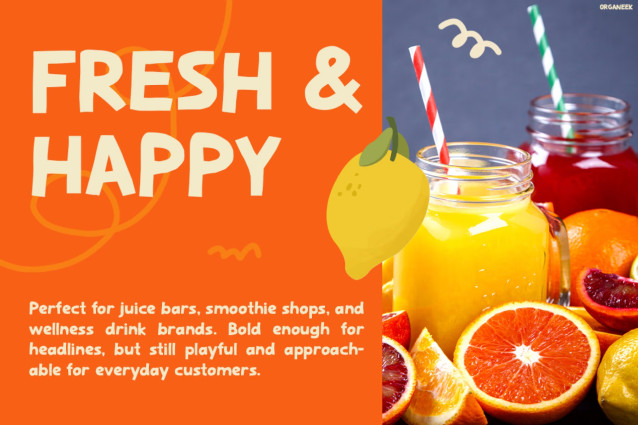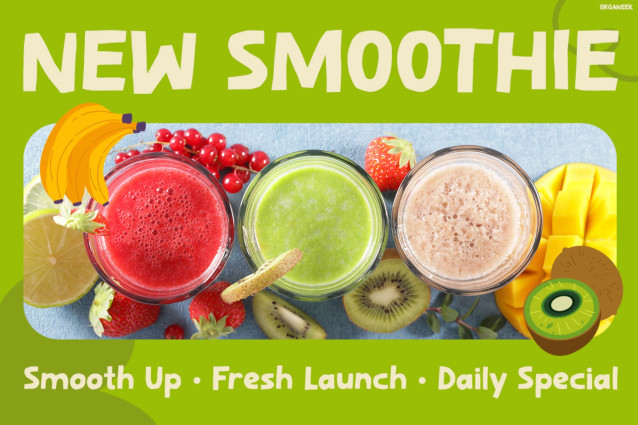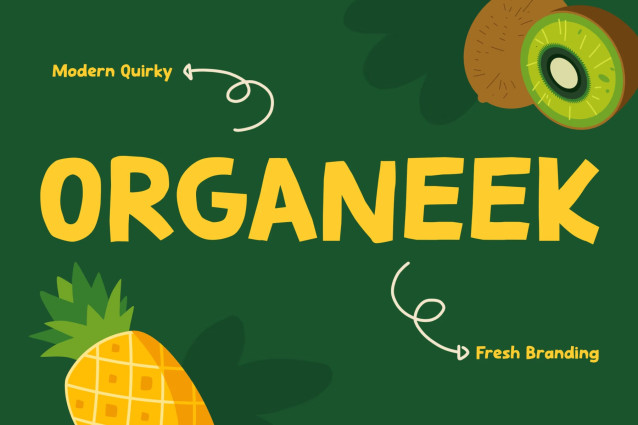
Organeek Font
Organeek Font instantly delivers a lively and juicy personality to your designs, while also maintaining clean readability. Moreover, its bold, rounded shapes and organic curves create a perfect harmony between playful style and professional structure. As a result, every composition feels fresh, dynamic, and visually engaging.
In addition, this font performs beautifully in colorful layouts, especially for food, beverage, and lifestyle themes. Not only that, but its smooth letterforms also ensure clarity across both digital and print media. Furthermore, with Multilingual Support (67 Languages), your message can easily connect with a global audience.